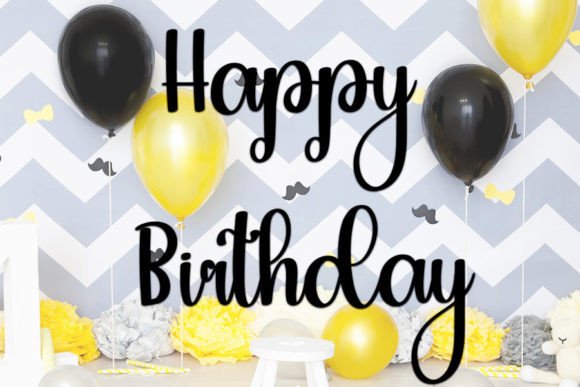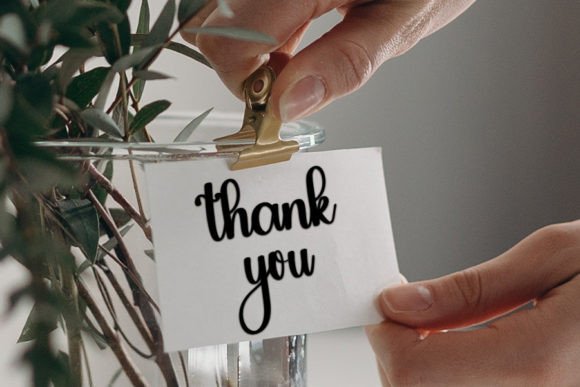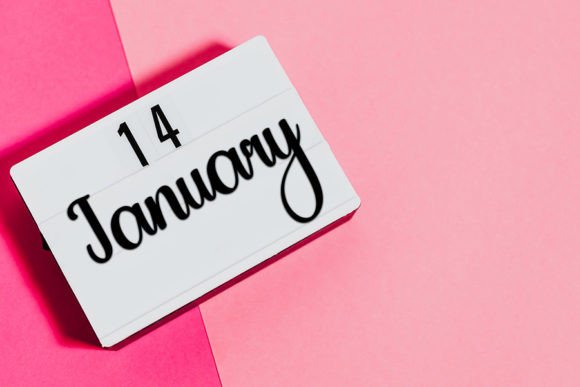
Pillow Font
Pillow Font: Elegant Handwriting for Timeless Designs
“Pillow” is a neat and beautiful handwritten font that brings an elegant touch to your designs. It’s perfect for various creative projects, from branding to invitations.
Key Features of Pillow Font
• Elegant Style: Pillow combines neatness with timeless beauty.
• Versatile Use: Suitable for many projects, including branding and packaging.
• Classic Appeal: Adds a sophisticated touch to your typography.
Invitations and Labels
Pillow’s elegant style is ideal for creating beautiful wedding invitations and sophisticated product labels.
Posters and Quotes
Use Pillow to design eye-catching posters and memorable quotes that capture attention with their refined elegance.
Branding and Packaging
The font’s timeless character makes it perfect for creating sophisticated brand identities and product packaging.
Why Choose Pillow Font?
Pillow offers more than just beautiful letters. Here’s why it stands out:
• Enhances overall aesthetics with its refined elegance
• Creates a harmonious and captivating atmosphere in typography
• Adapts well to various design themes and creative endeavors
By using Pillow, you open up new design possibilities. Its elegant style works well in many contexts, from greeting cards to website headers. The font’s ability to convey sophistication can inspire creative ideas and help you approach projects from a fresh perspective.
If you’re looking for a font that combines neatness with timeless elegance, Pillow is an excellent choice. It’s perfect for adding a touch of sophistication to your work, especially for projects that need a classic, refined feel.
Explore how Pillow can transform your designs. From branding materials to invitations, this font brings a graceful and captivating quality to your creations.